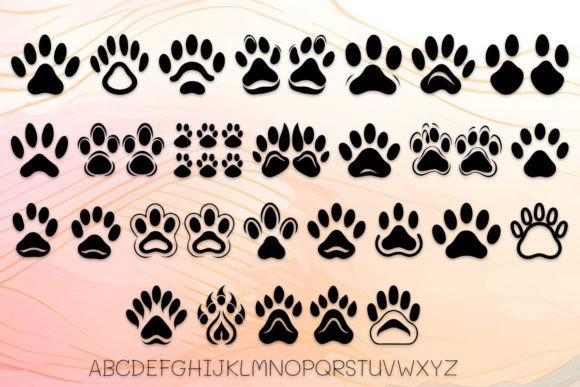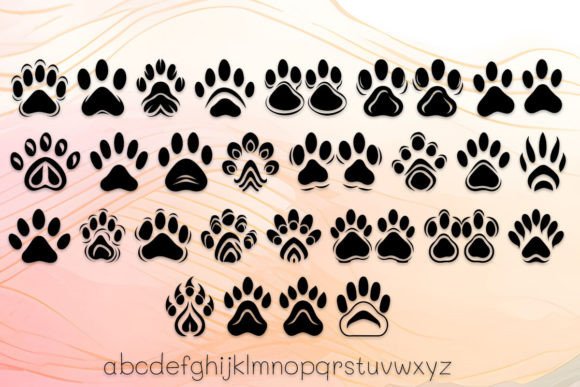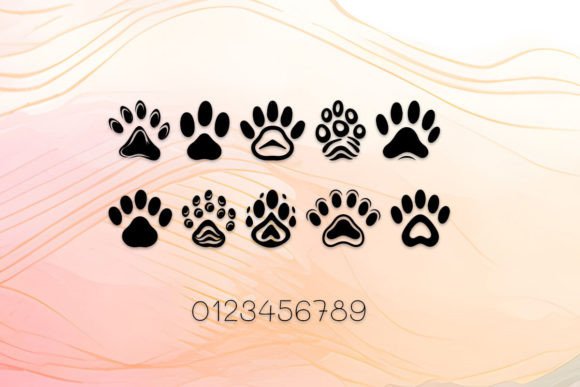
Unleash Creativity with Dog Paws Font: A Playful Dingbat Collection
Are you a designer, crafter, or simply a dog lover looking for a unique and creative way to add a personal touch to your projects? Look no further than the Dog Paws Font, a delightful collection of dingbat fonts that will make your designs stand out. This charming font features 62 characters, including 26 uppercase letters, 26 lowercase letters, and numbers from 0 to 9, all creatively designed with a thematic focus on dog paw-inspired symbols and elements.
What Makes Dog Paws Font So Special?
The Dog Paws Font is a one-of-a-kind dingbat collection that combines the playfulness and endearing nature of dogs with creative typography. Each letter, number, and symbol in this font is adorned with intricate and adorable dog paw-themed motifs, making it perfect for a variety of design projects. Whether you’re creating invitations, greeting cards, scrapbooking pages, or social media graphics, this font is sure to add a touch of whimsy and fun to your work.
Design Elements and Features
The Dog Paws Font features a range of design elements that make it both versatile and visually appealing. Some of the key features include:
- Dog Paw-Inspired Characters: Each character in the font is designed with a unique dog paw-inspired theme, featuring various styles of paw prints, paw shapes, and related dog-inspired designs.
- Intricate Details: The font features intricate details and patterns, making each character a miniature work of art.
- Playful and Whimsical: The overall design of the font is playful and whimsical, capturing the fun and endearing nature of dogs.
Uses for Dog Paws Font
The Dog Paws Font is a versatile design tool that can be used in a variety of projects, including:
- Invitations and Greeting Cards: Add a personal touch to your invitations and greeting cards with this unique and playful font.
- Scrapbooking: Use the Dog Paws Font to create custom titles, captions, and journaling on your scrapbooking pages.
- Social Media Graphics: Add a touch of whimsy to your social media graphics, such as Facebook posts, Instagram stories, and Twitter headers.
- Stationery and Gift Tags: Create custom stationery and gift tags with this adorable font.
Tips for Using Dog Paws Font
To get the most out of the Dog Paws Font, here are a few tips:
- Experiment with Different Sizes: Try using the font in different sizes to see how it looks in various contexts.
- Mix and Match Characters: Combine different characters from the font to create unique and interesting effects.
- Use with Other Fonts: Pair the Dog Paws Font with other fonts to create a contrasting look.
The Dog Paws Font is a unique and creative dingbat collection that is sure to delight designers, crafters, and dog lovers alike. With its playful and whimsical design, this font is perfect for adding a personal touch to a variety of projects. Whether you’re creating invitations, scrapbooking pages, or social media graphics, the Dog Paws Font is a versatile design tool that is sure to inspire your creativity.